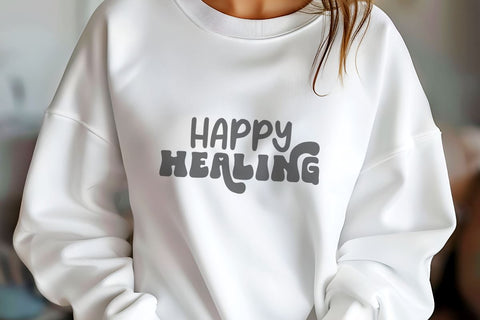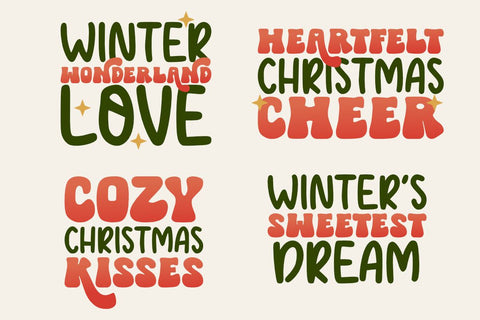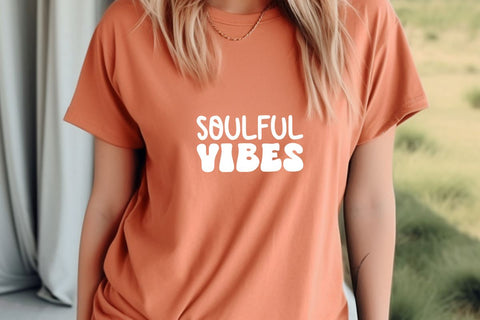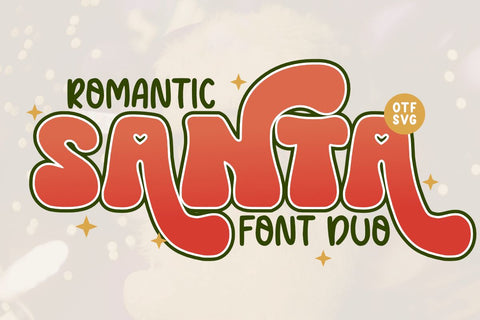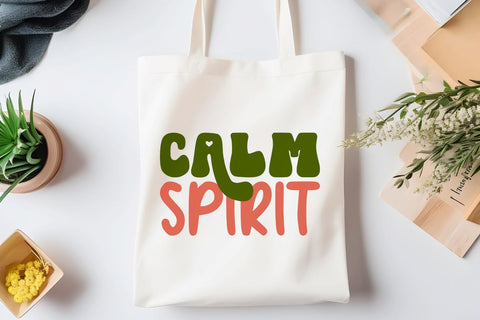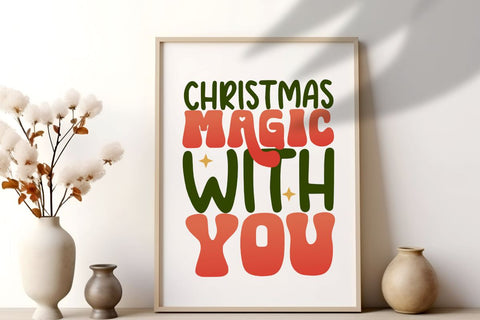
Romantic Santa - Duo Font
Romantic Santa is a sweet and playful display font perfect for adding a touch of vintage charm to your Christmas designs. With its bold, rounded letters and heart details, this font will bring a smile to everyone's face. Use it to create eye-catching Christmas cards, party invitations, or festive social media graphics.